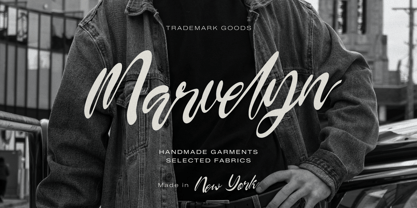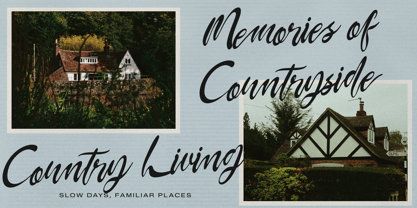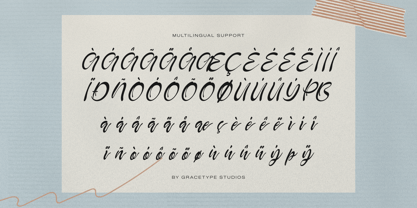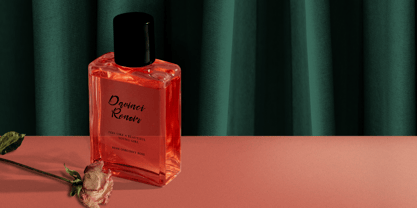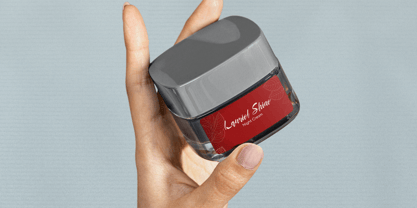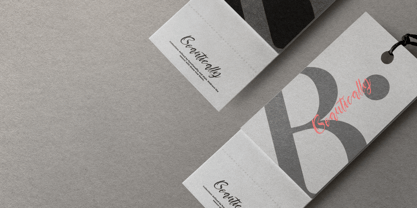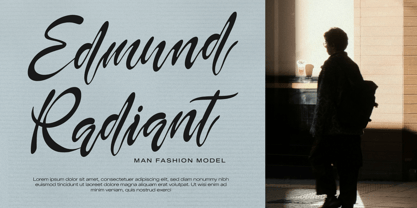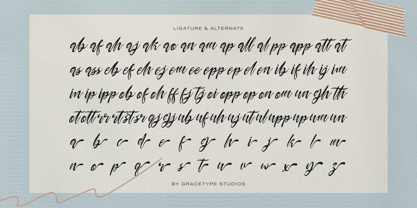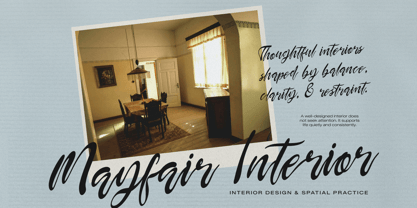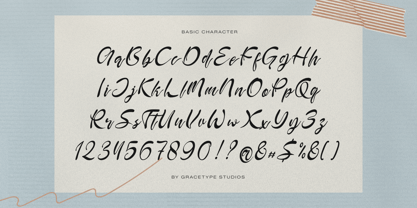
Velmaford
by Tini Fitriani
The Velmaford Font Family was designed by and published by Tini Fitriani. Velmaford contains 2 styles and family package options. More about this family
Velmaford | Casual Elegant Script, from Gracetypestudio, suitable for any projects such as: logos, branding projects, homeware designs, product packaging, mugs, quotes, posters, shopping bags, t-shirts, book covers, name card, invitation cards, greeting cards, label, photography, watermark, special events, and all your other lovely projects that need a Script taste.